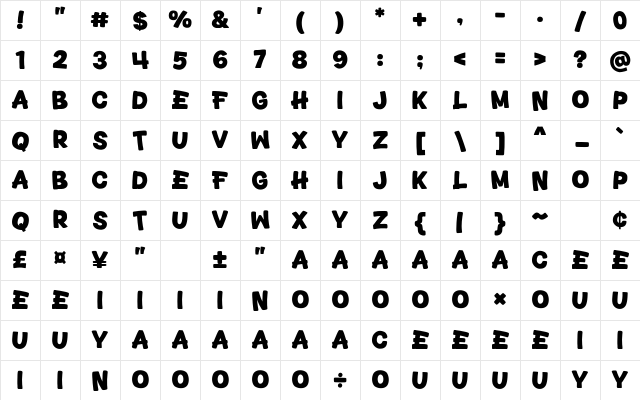
Tendang Regular
Foundry: Khurasan
Designer: Khurasan
Design Context for Tendang
Tendang is a composed and adaptable typeface that performs quietly and consistently across a wide range of design contexts.